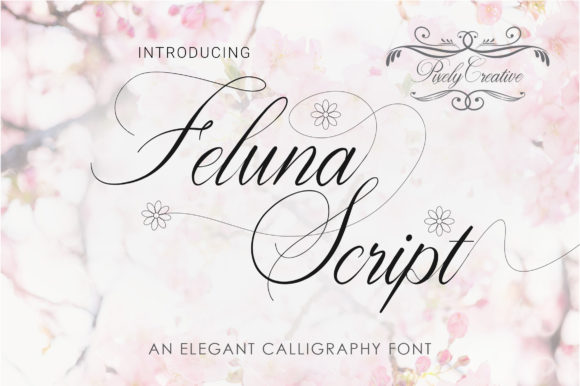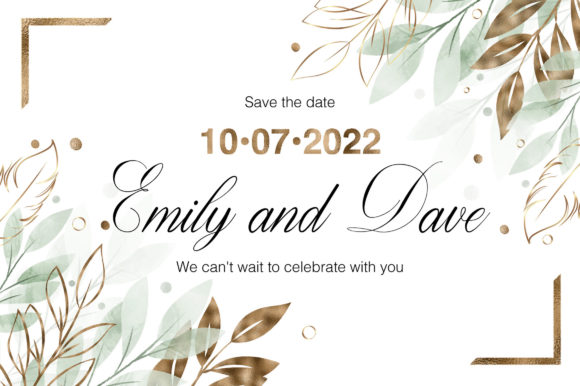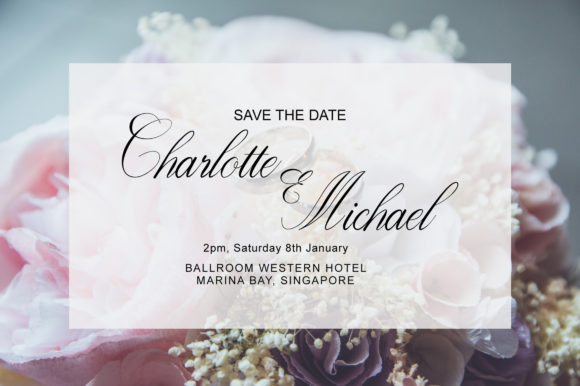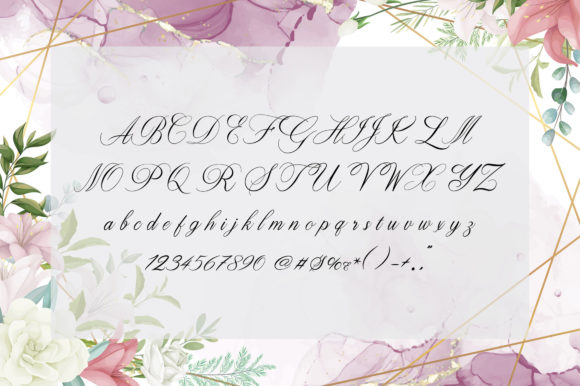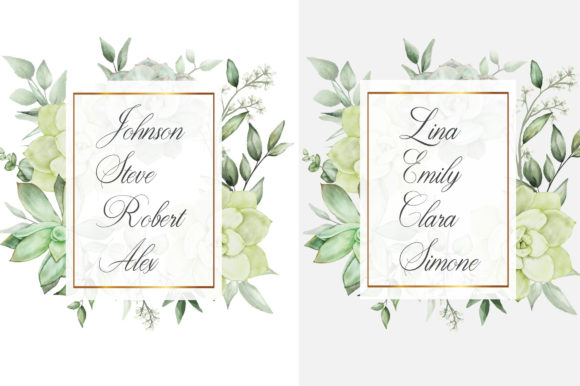
Feluna Script Font
About Feluna Script Font
Feluna Script is a unique and modern handwritten font. It is perfect for romantic designs, quotations, birthdays, wedding invitations, and other events. Add this font to your ideas to make them look more authentic!